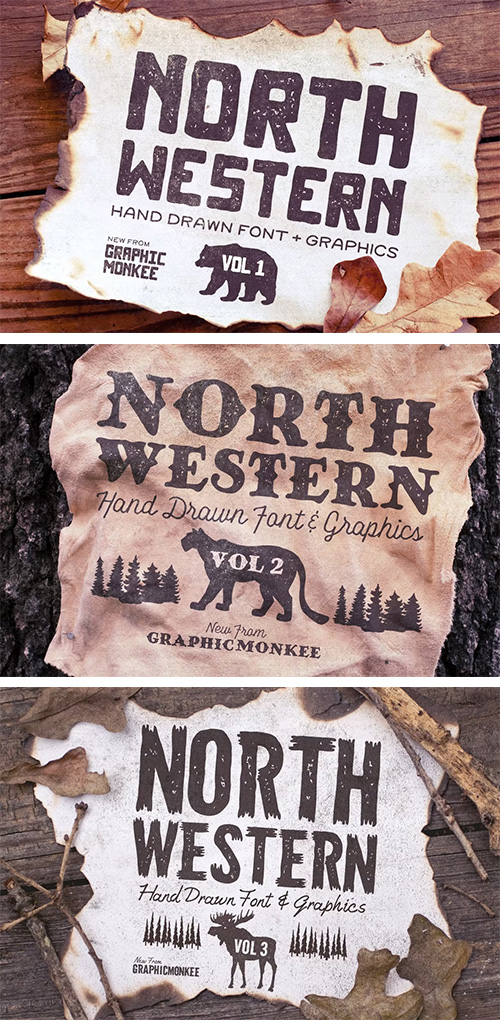
- Here it is! All 3 volumes of the North Western font series in one BIG bundle! This is a collection of fonts and vector graphics inspired by the northwestern region of America. Once I sat down and started sketching the set, it became so big that I'm splitting it into 3 volumes. This bundle includes all three volumes!